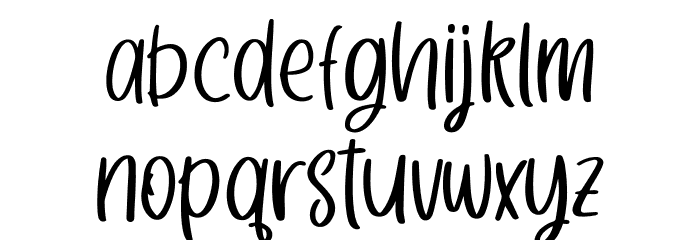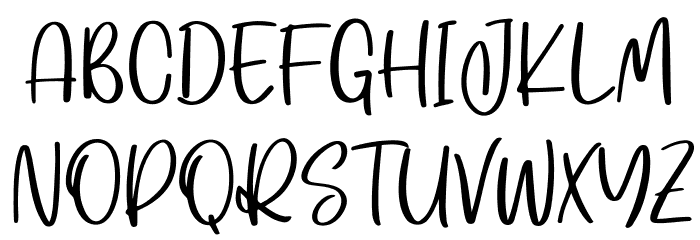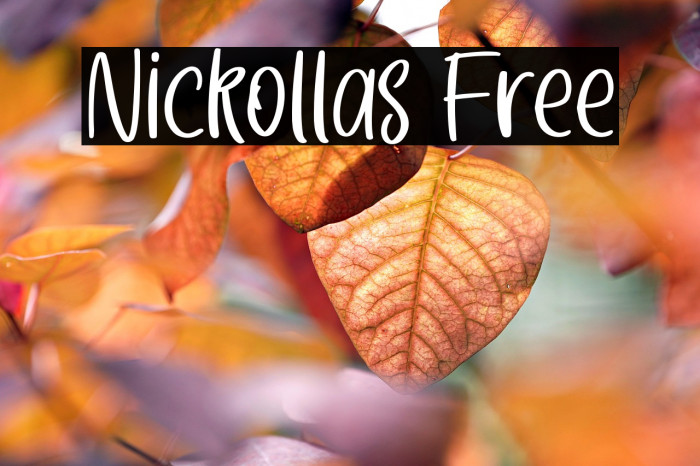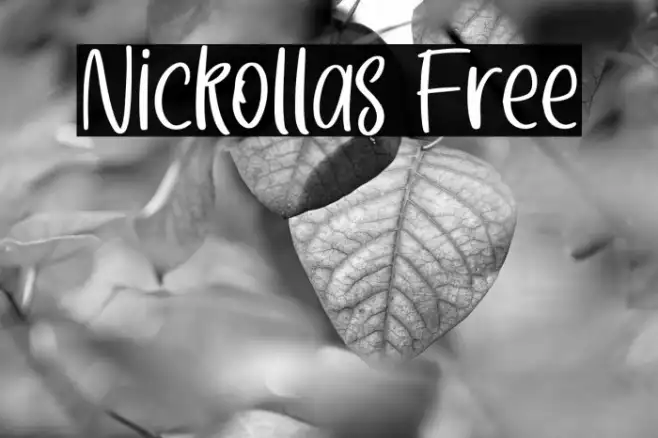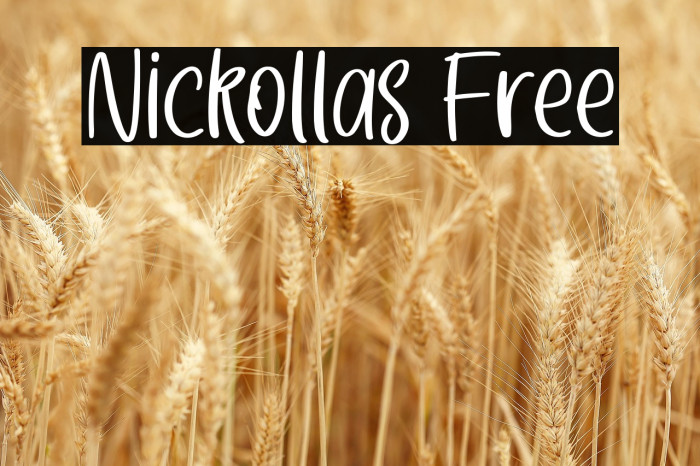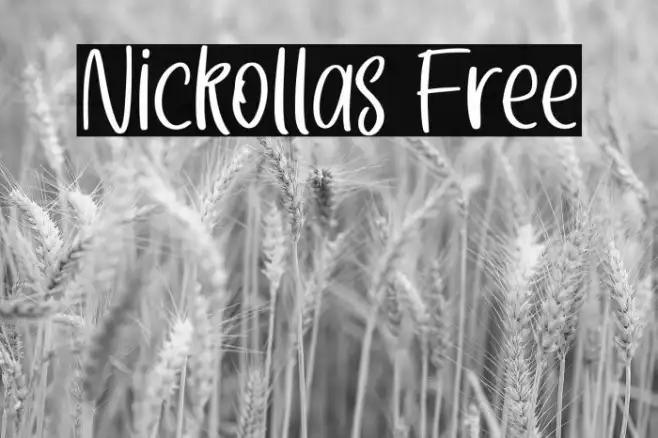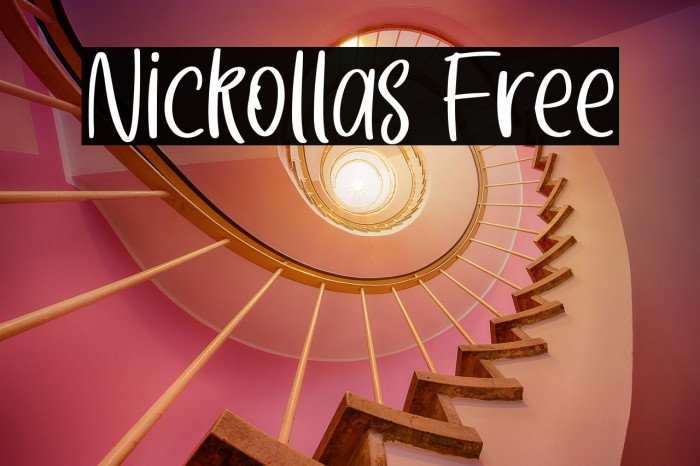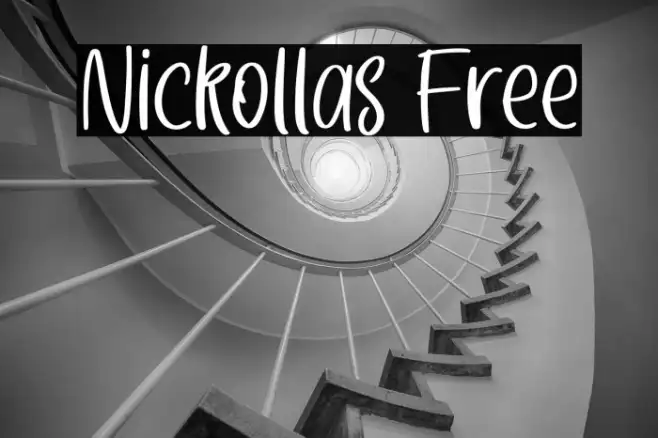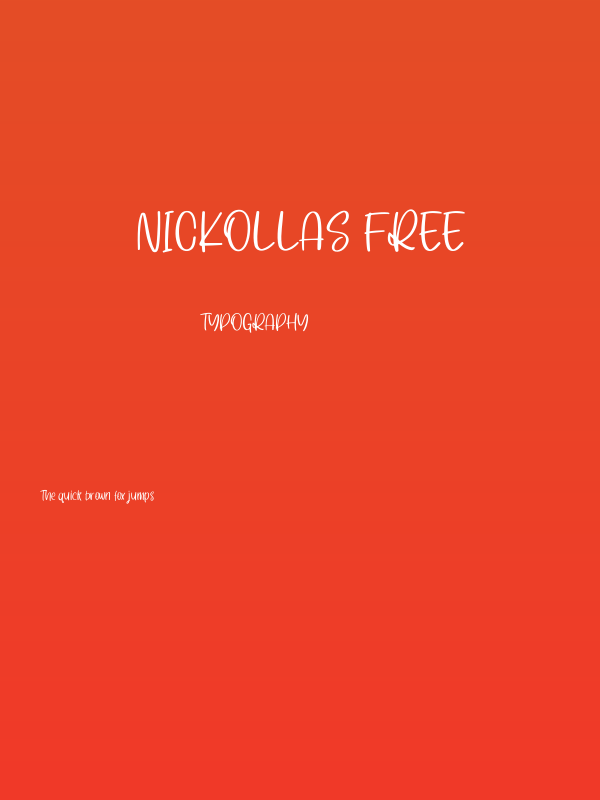
Nickollas Free Font
This font features a playful and casual handwritten style, characterized by its smooth, flowing lines and slightly irregular letterforms. The uppercase and lowercase letters exhibit a consistent stroke width, giving the font a harmonious appearance. The rounded edges and slight slant add a touch of informality, making it approachable and friendly. The characters are well-spaced, ensuring readability while maintaining a relaxed aesthetic. This font is versatile, suitable for a variety of creative projects where a personal touch is desired.
A playful, casual handwritten font with smooth, flowing lines.
- Proposed Projects: Ideal for greeting cards, invitations, personal branding, and social media graphics.
- Category: Handwritten
- Overall Style: Casual
- Use Case: Logos, Headlines, Informal text